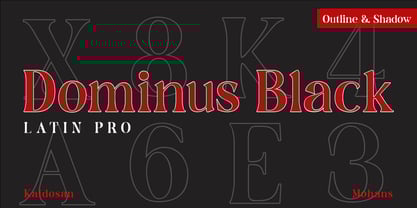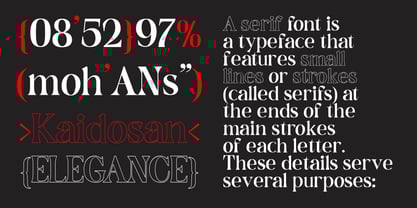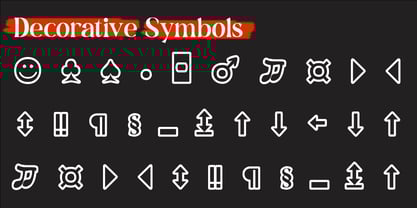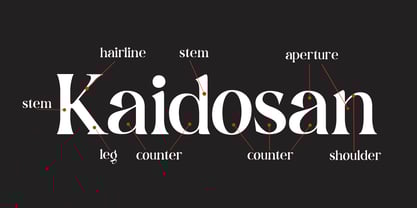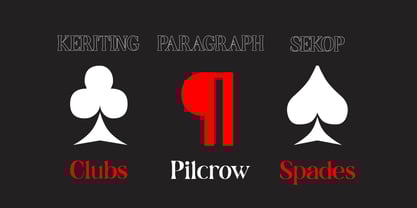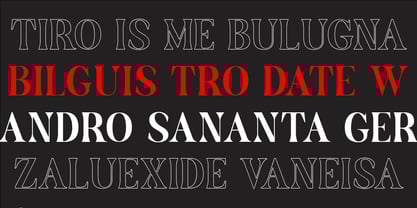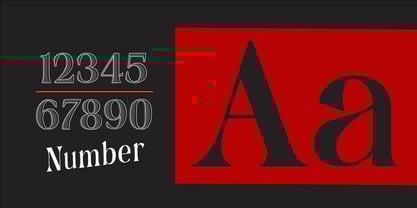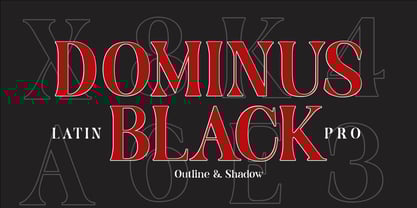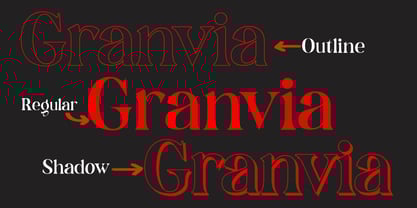
Dominus Black
A família de fontes Dominus Black foi desenhada por Muhammad Ansari e publicada pela Kaidosan. Dominus Black contém 3 estilos e opções de pacote familiar.
Dominus Black is a modern, bold serif font designed to make a powerful visual statement. It combines classic serif elements with contemporary proportions, resulting in a look that is both authoritative and fresh. With its three versatile family members (Regular, Outline, and Shadow), Dominus Black offers incredible flexibility for a wide range of design projects, from logos and branding to promotional materials that require an elegant yet impactful presence.
Key Features:
• High Legibility: Despite its bold weight, the character details remain sharp and clear even at smaller sizes.
• Design Consistency: All three variants are harmoniously designed to be used together seamlessly within a single composition.
• Multipurpose Functionality: Suitable for both high-resolution print and digital media.